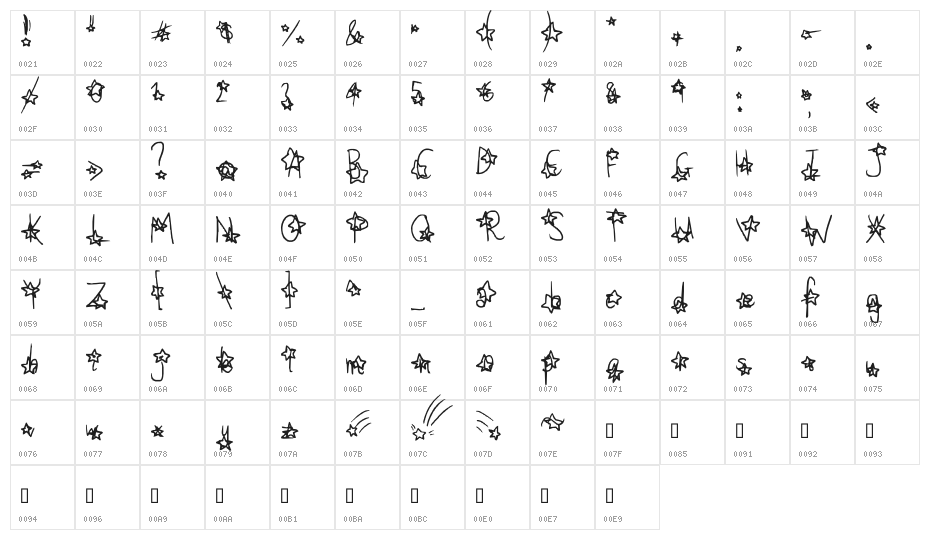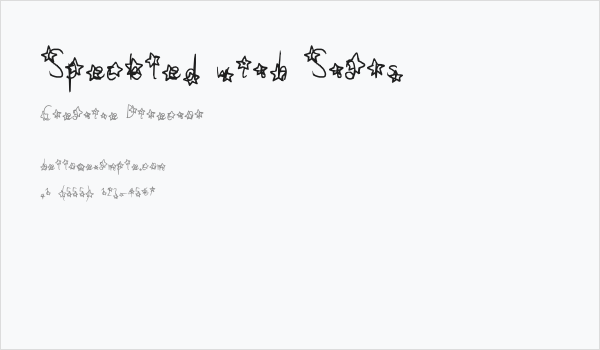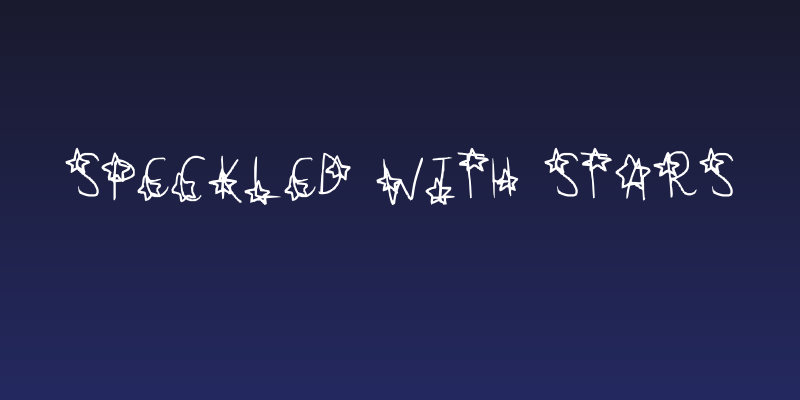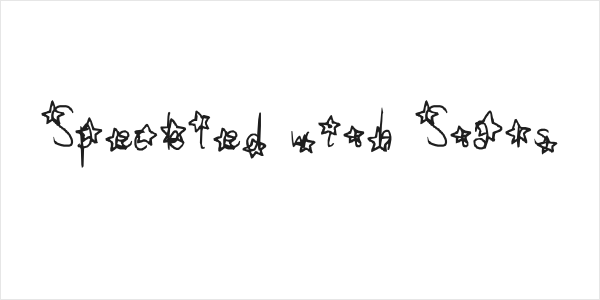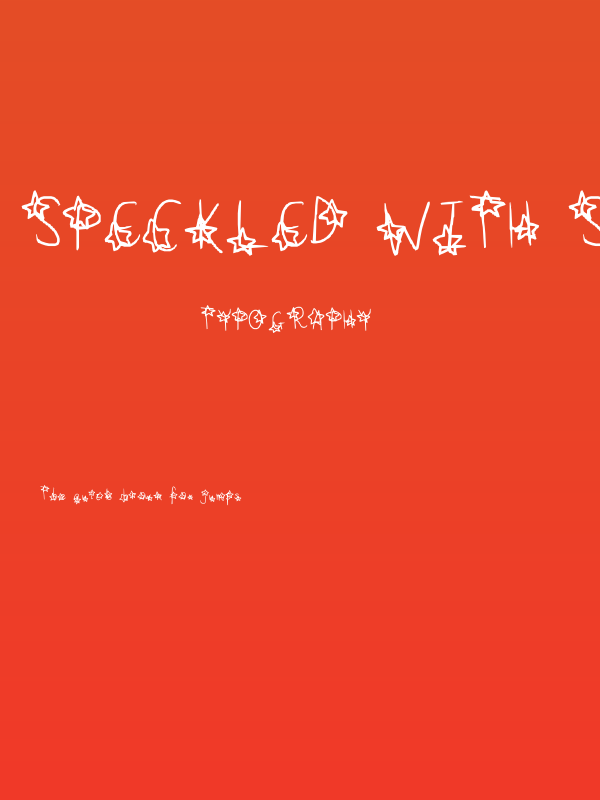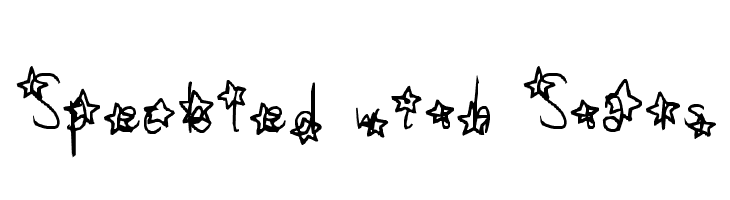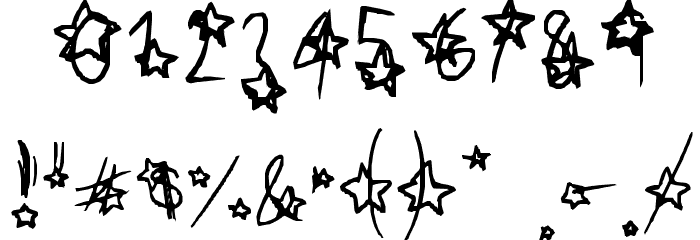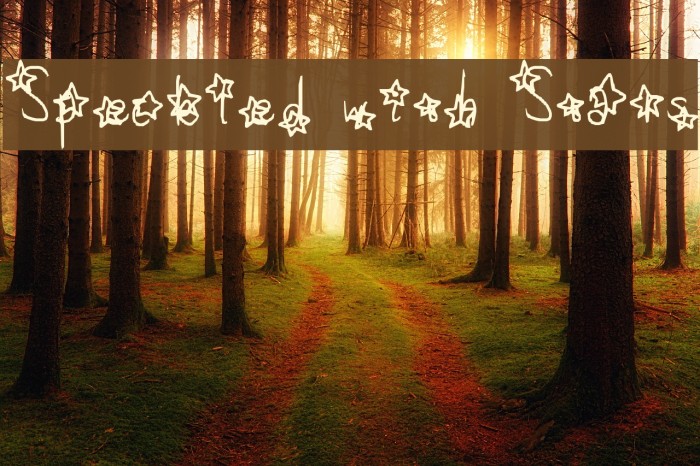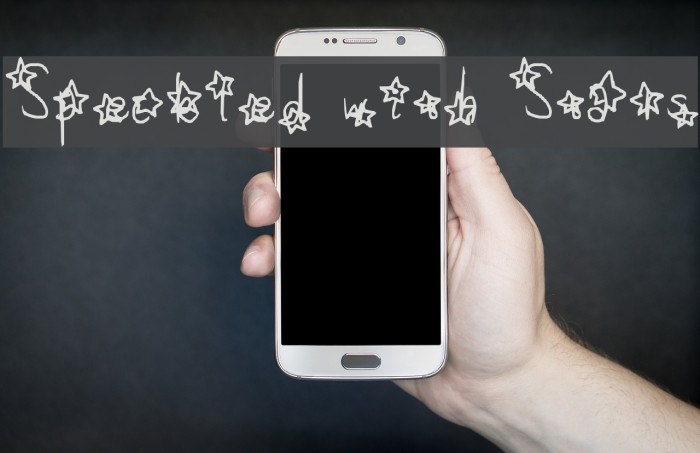
Speckled with Stars Font
Speckled with Stars Description
This whimsical and playful font features letters and numbers adorned with star motifs, creating a unique and eye-catching design. Each character is intertwined with a star, giving it a celestial and artistic flair. The font has a hand-drawn, sketch-like quality, adding to its charm and individuality. The irregular shapes and lines contribute to a dynamic and lively appearance, making it suitable for creative and informal projects. The overall style is decorative and imaginative, perfect for adding a touch of magic and fun to any design.
| Proposed Projects | Ideal for children's book covers, party invitations, greeting cards, and whimsical branding. |